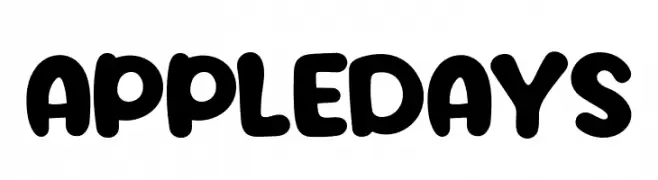
A flowing, cursive script font with elegant, connected characters.
A bold, decorative font with strong vertical lines and sharp serifs, perfect for vintage designs.
A playful, bold font with rounded, thick strokes and a friendly appearance.
A flowing, elegant script font with dynamic strokes and a modern flair.
A bold, modern font with thick, uniform strokes and a geometric structure.
A playful, hand-drawn font with rounded, informal characters.
A semi-bold, ultra-condensed font with a modern, minimalist style.
A graceful, handwritten script font with elegant curves and a calligraphic style.
A bold, textured font with a distressed, ghostly appearance.
تحظى Emas Ghozalu, Prohibition, Apple Days, Valencia Script and Karantina Bold بشعبية لخطوطها النظيفة وتطبيقاتها الواسعة — من الهوية البصرية إلى الصفحات المقصودة والملصقات.